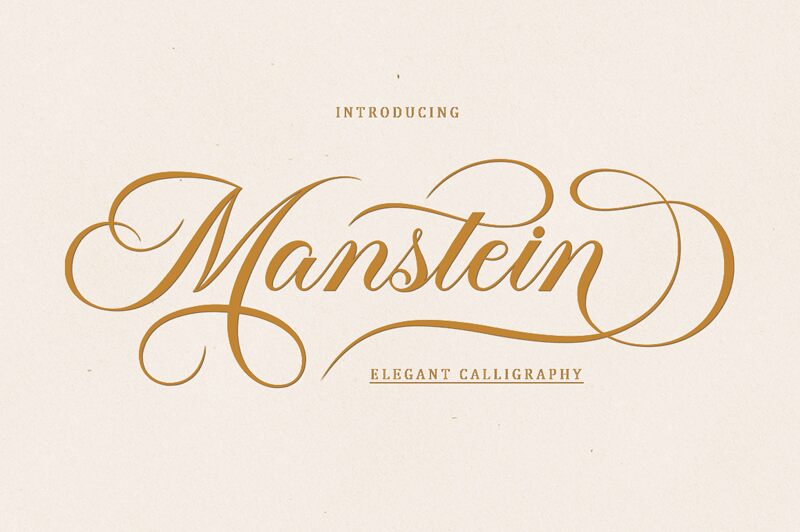
Manstein, crafted by the brilliant designer Wahi Din, is an exquisite calligraphy font with a semi-light weight. Its graceful curves and delicate strokes evoke elegance and sophistication. Perfectly suited for wedding invitations, luxurious branding projects, or high-end fashion editorials, Manstein brings a touch of refined artistry to any design. Whether you're designing an upscale restaurant menu or creating stunning social media graphics for a jewelry brand, this font will elevate your project with its timeless beauty and charm. Let Manstein's alluring script transform your creations into works of art.
Features : Beginning, Middle, Up, Down & End Swash, & Ligatures.
Manstein